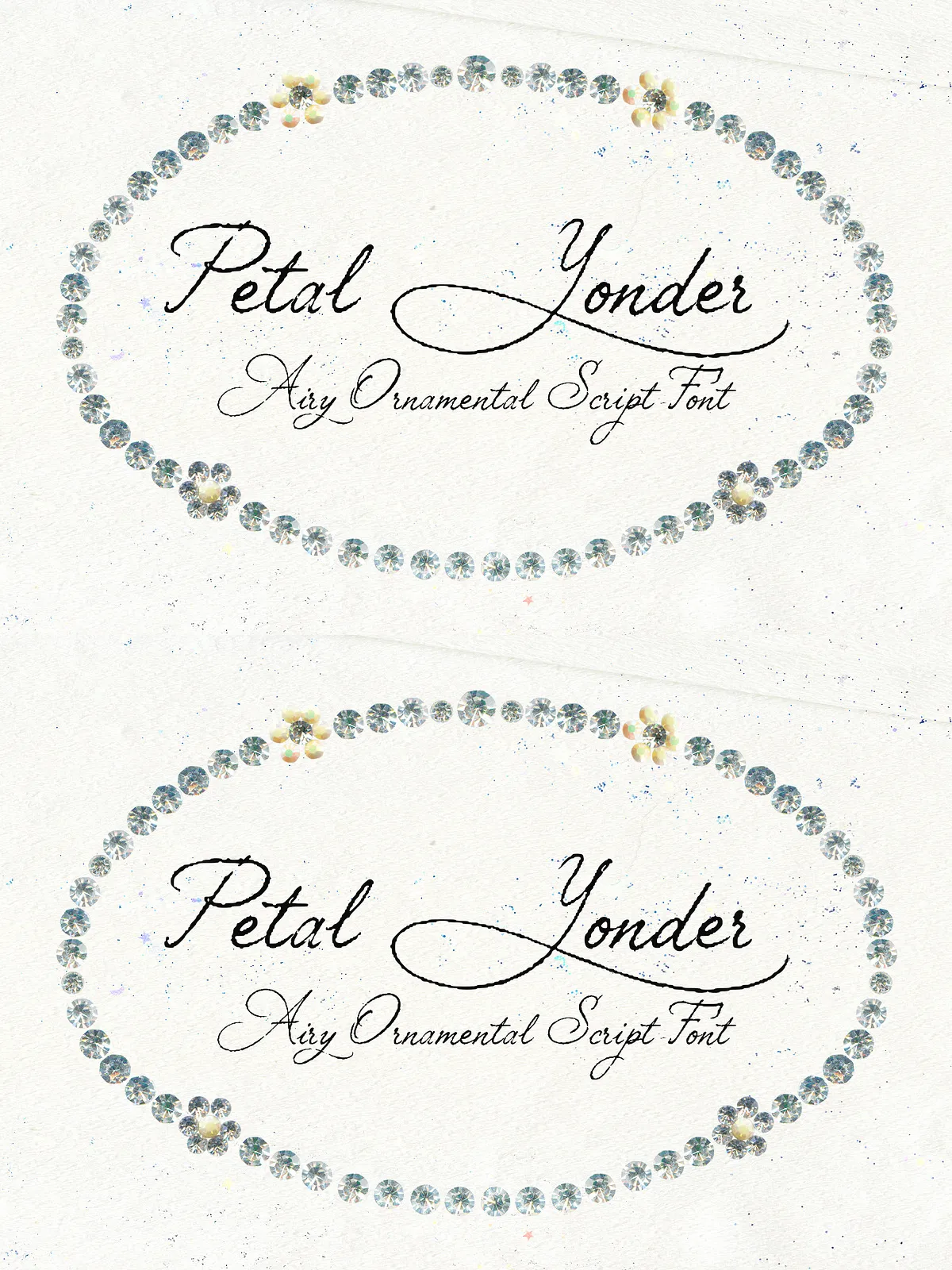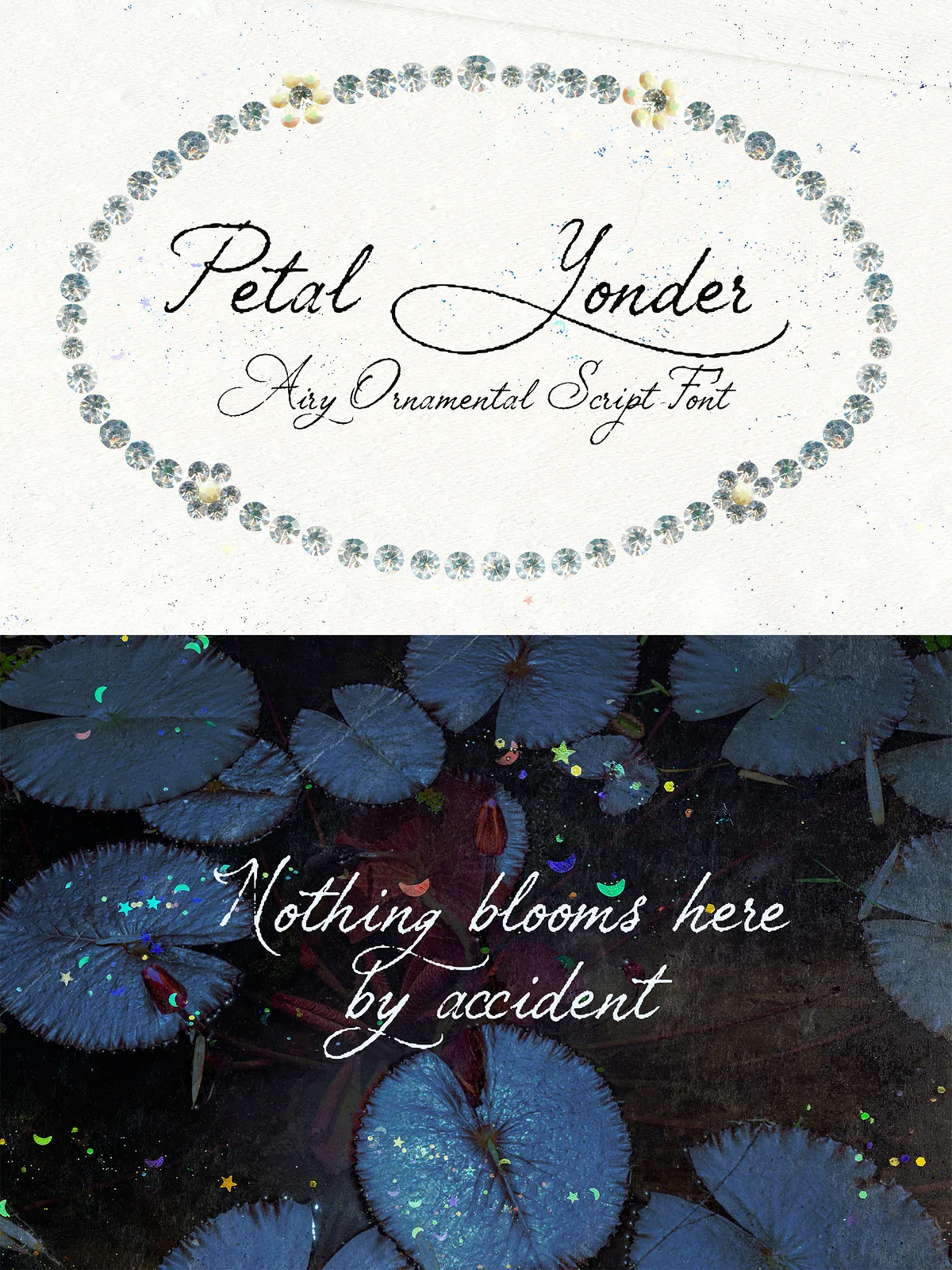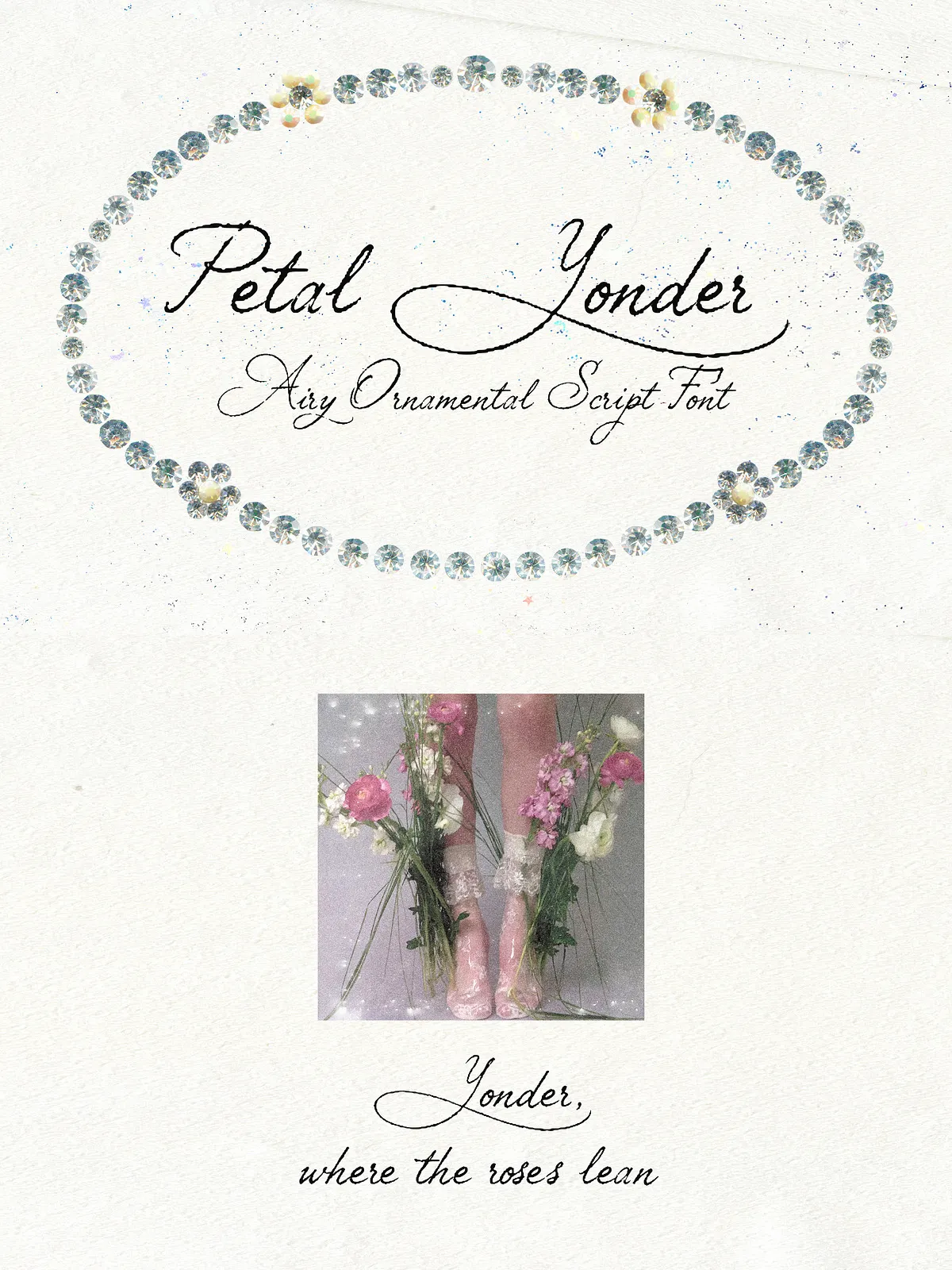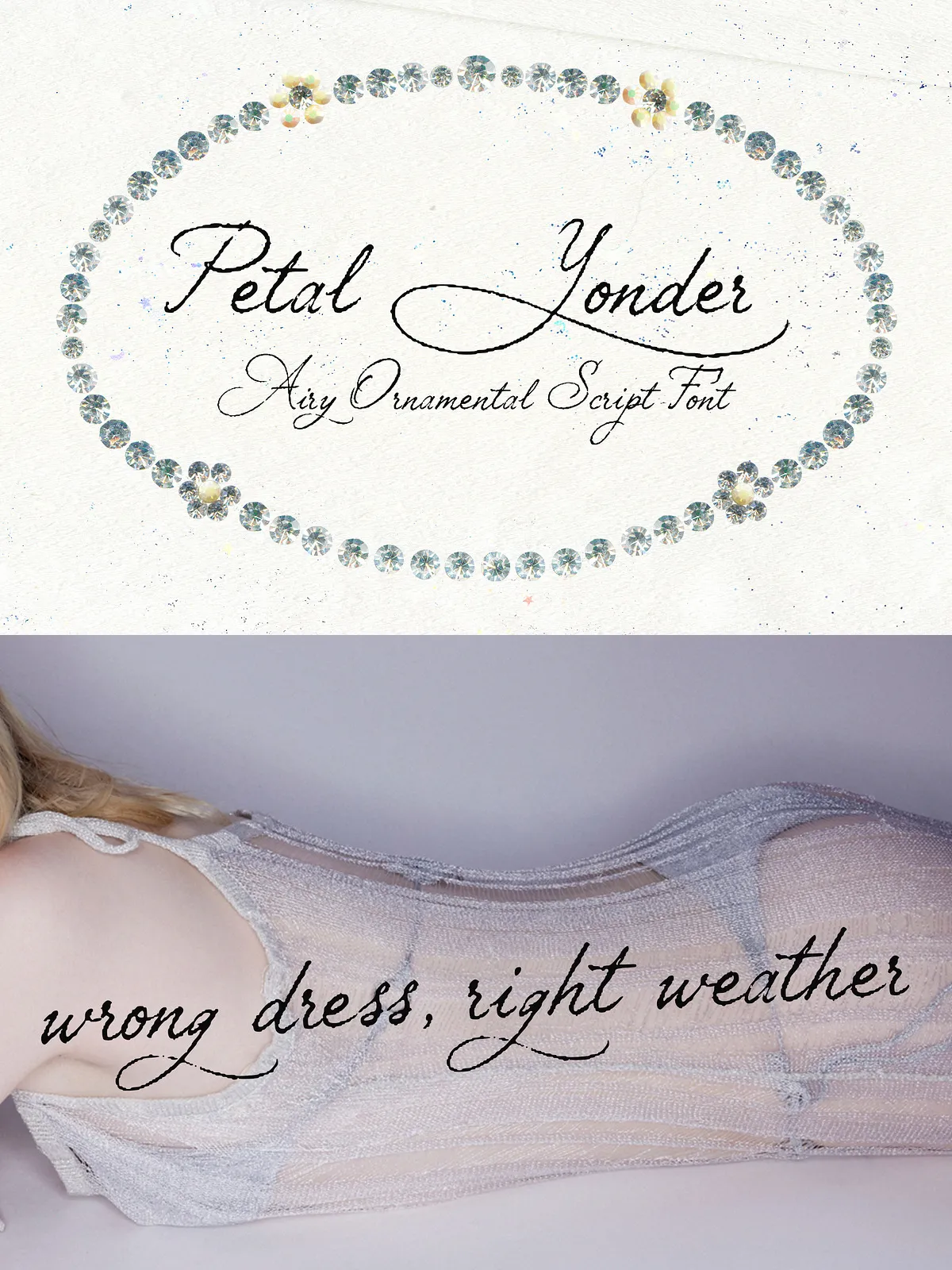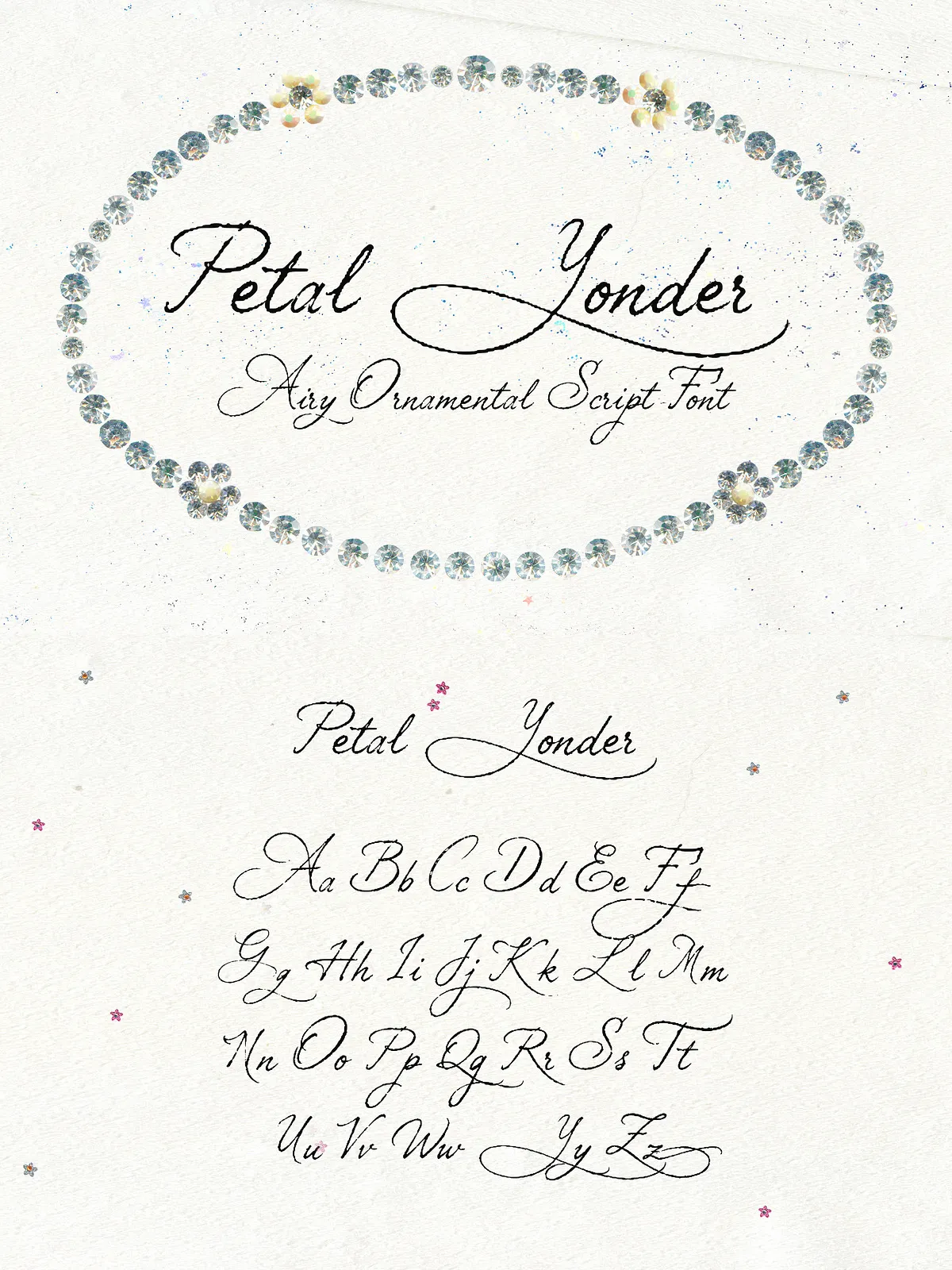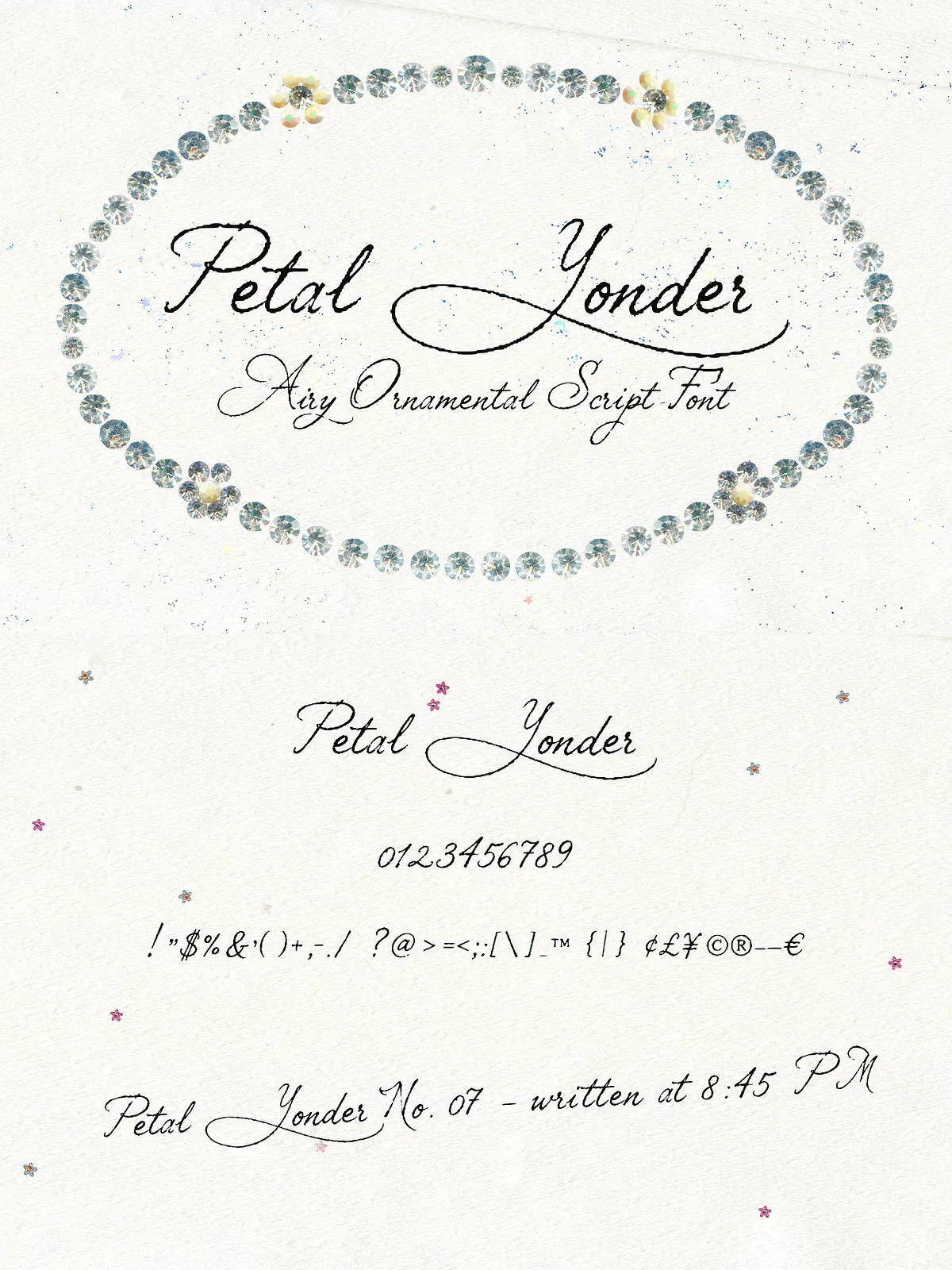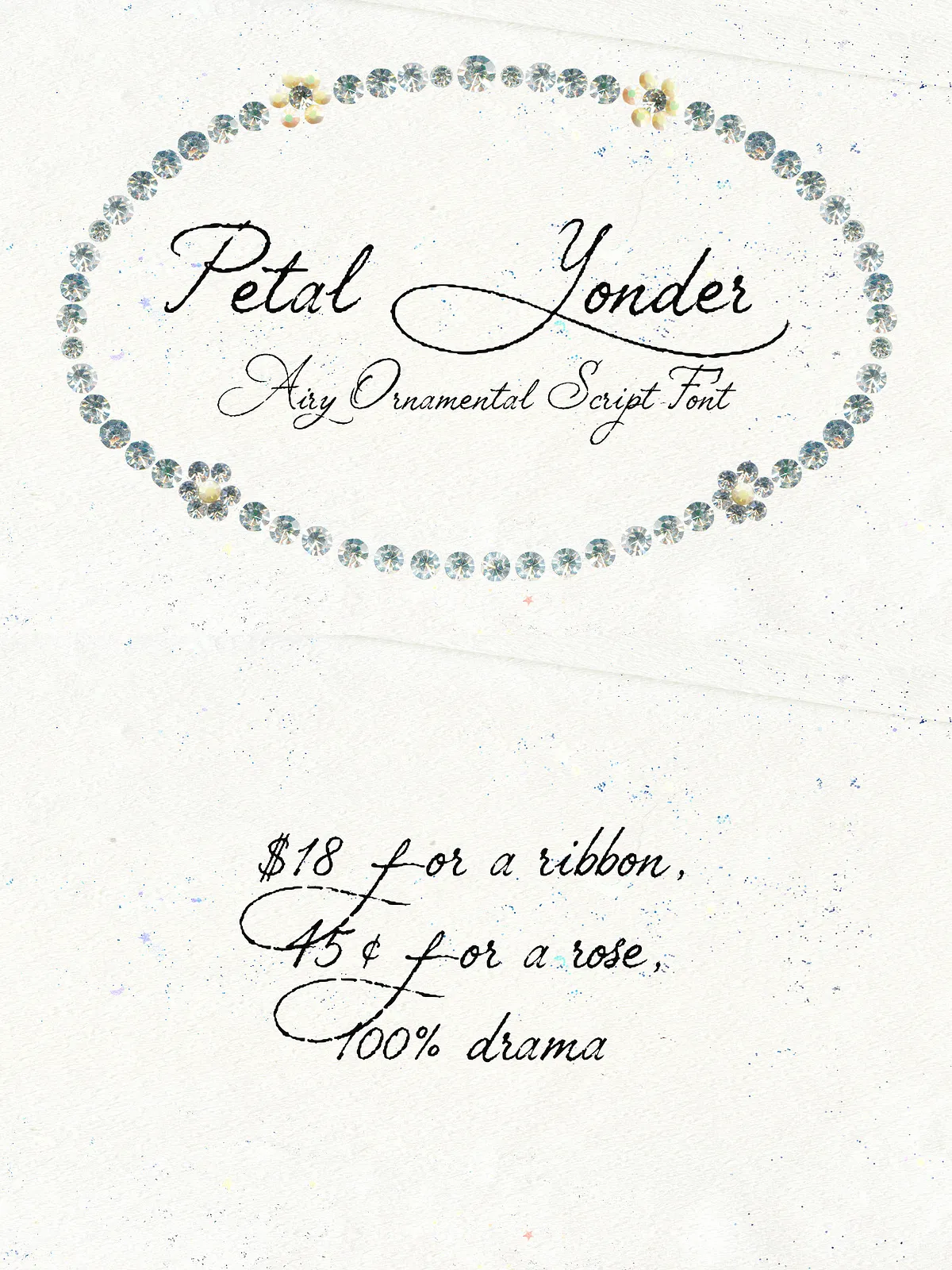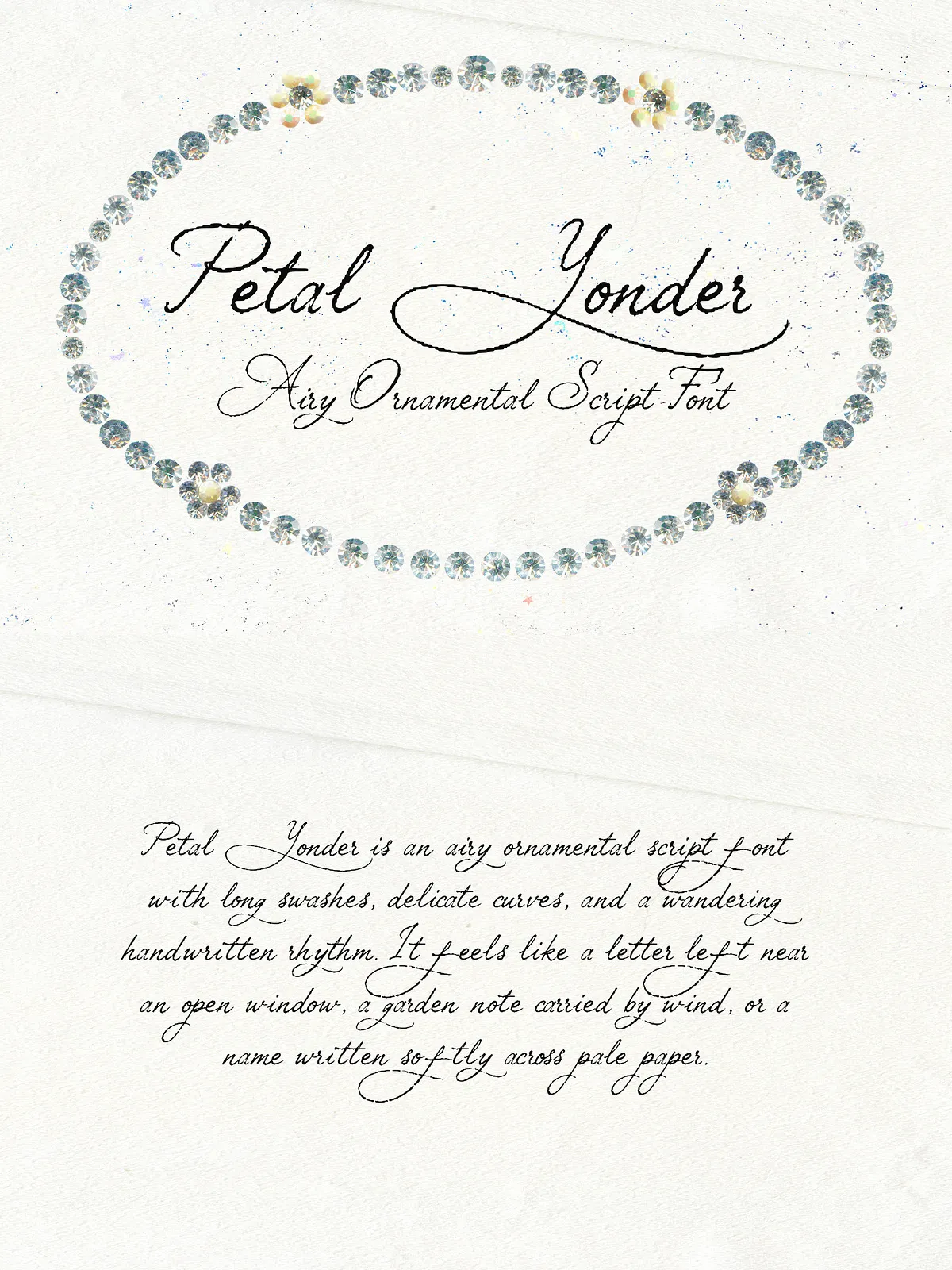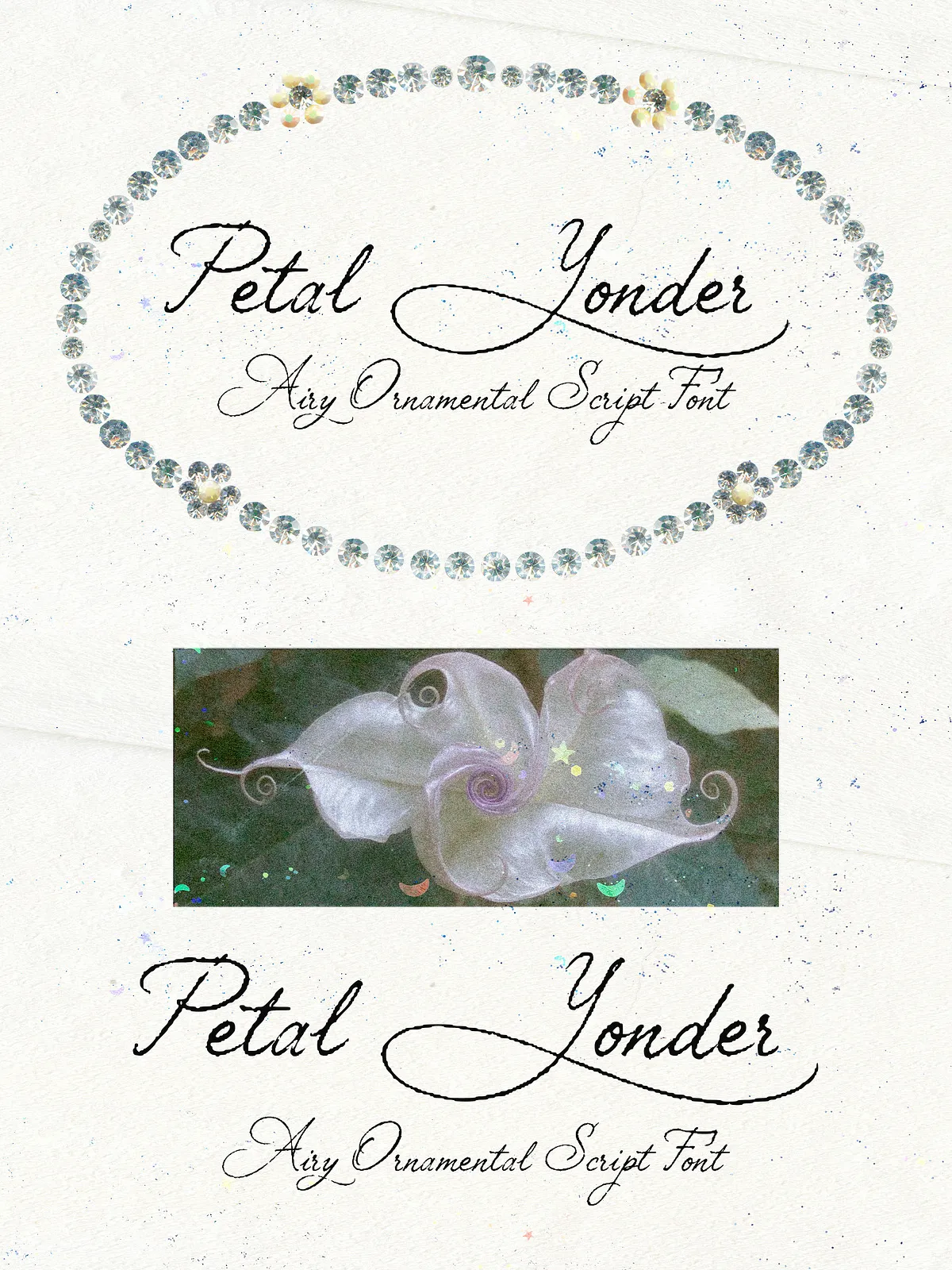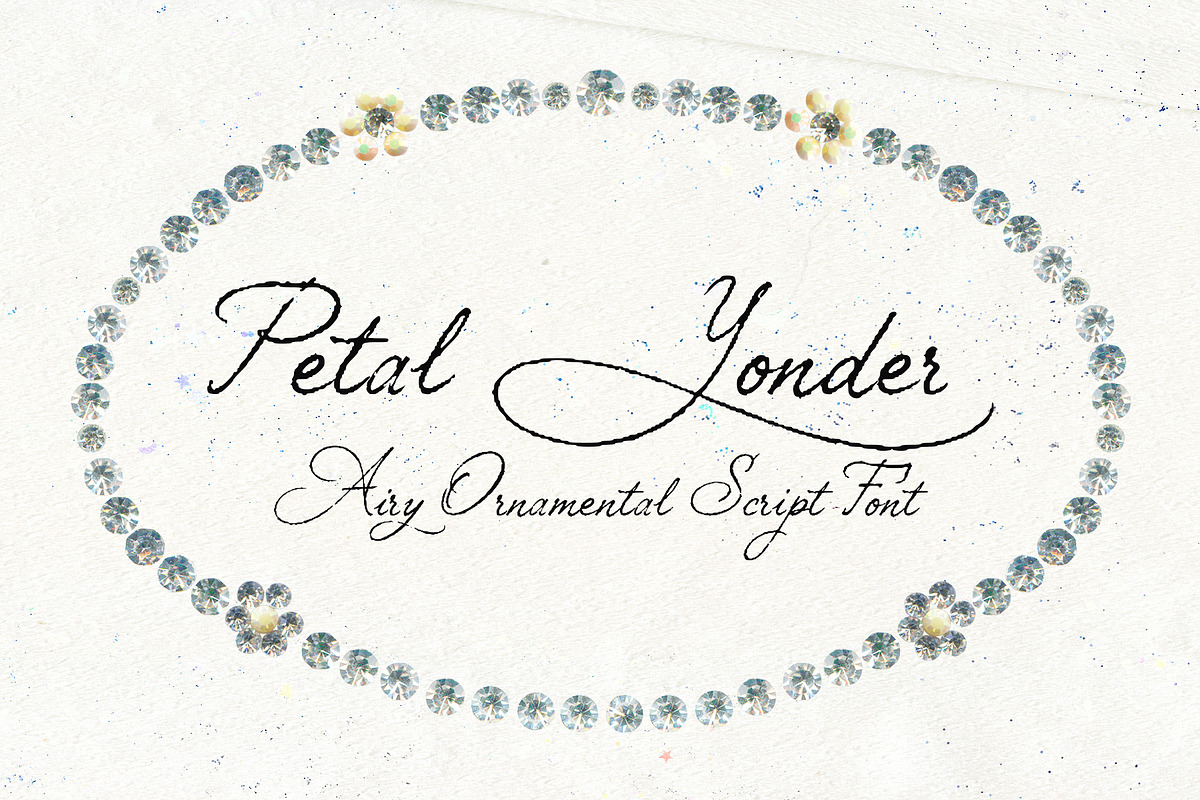
Petal Yonder: Airy Script Font
Petal Yonder delivers a weightless, wind-drifted aesthetic that reads as both romantic and slightly untamed. Long, sweeping swashes and airy curves create graceful movement across words and headlines. The letterforms carry a lightly imperfect texture that evokes vintage handwriting and floral lettering while remaining contemporary and ornamental. This script acts boldly: it leads the eye, creates atmosphere, and transforms simple copy into lyrical identity.
Voice and Intent
Use Petal Yonder when you want designs that feel soft yet expressive. The typeface projects a dreamy silhouette and a sense of movement that suits romantic brands, beauty visuals, and editorial features. Petal Yonder does not sit quietly — it loops, trails, leans, and leaves an intentional trace that amplifies emotional and aesthetic storytelling.
Key Visual Features
Distinctive Elements
• Long swashes that extend into decorative tails and frames.
• Delicate, slightly irregular texture that suggests handcrafted ink and vintage charm.
• Fluid connections between letters that maintain legibility at display sizes.
• Balanced contrast and open counters for an airy, readable silhouette.
Technical Qualities
• Optimized spacing and kerning for headline and logo use.
• Simple character set including uppercase, lowercase, numbers, and basic punctuation to support most display needs.
Best For
Primary Applications
• Branding and identity for boutique, floral, beauty, or lifestyle brands.
• Delicate logo work and wordmarks that require expressive swashes.
• Wedding stationery and event invitations with romantic or whimsical themes.
• Feminine packaging, cosmetic labels, and luxury beauty visuals.
• Editorial layouts, lookbooks, and quotes where decorative headlines enhance tone.
• Social media graphics, mood boards, and promotional assets that need an emotive script voice.
Practical Usage Guidance
Pairing Recommendations
Pair Petal Yonder with a neutral sans-serif or a restrained serif to preserve hierarchy. For body copy, choose a clean humanist sans with moderate x-height to balance the script’s ornamentation. When creating logos, combine Petal Yonder with a minimal geometric sans to keep the overall mark modern and legible.
Size, Spacing, and Readability
Reserve Petal Yonder for headlines, logos, and short phrases — its decorative swashes perform best at larger sizes. Increase tracking slightly when using multiple words to prevent swashes from colliding. Adjust kerning manually for logotypes to refine letter-to-letter rhythm and ensure the decorative tails flow naturally.